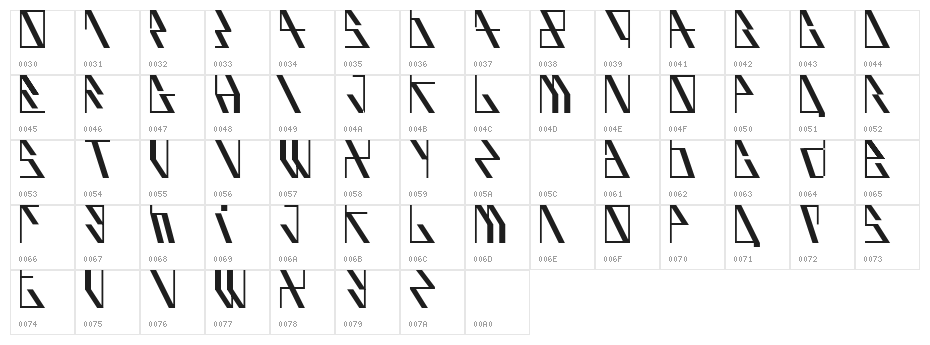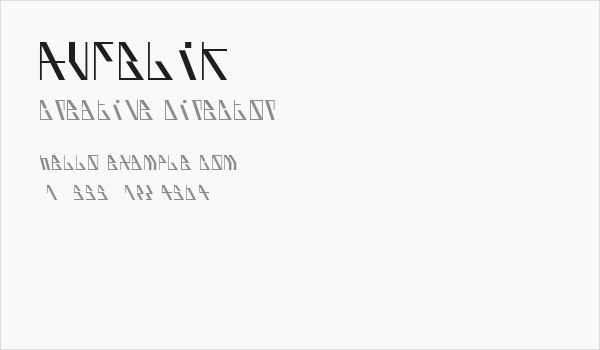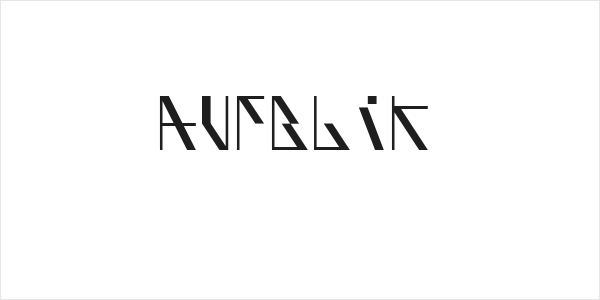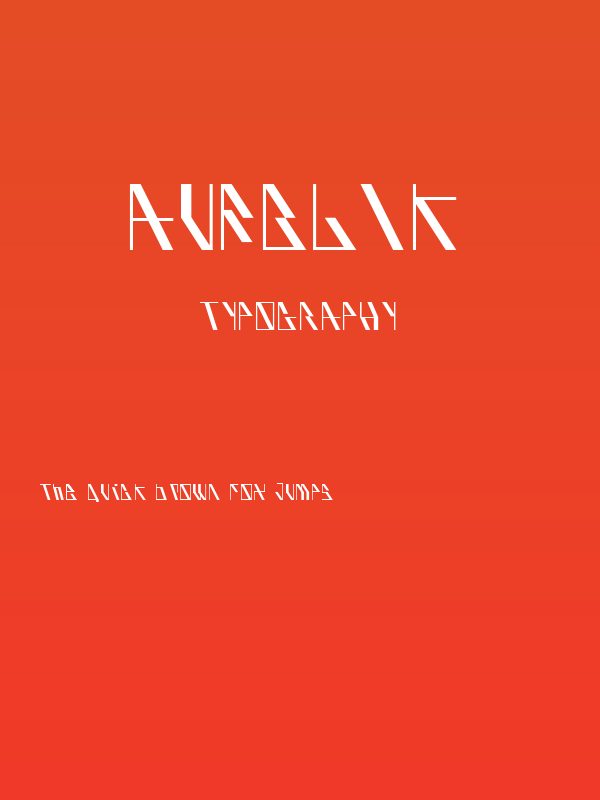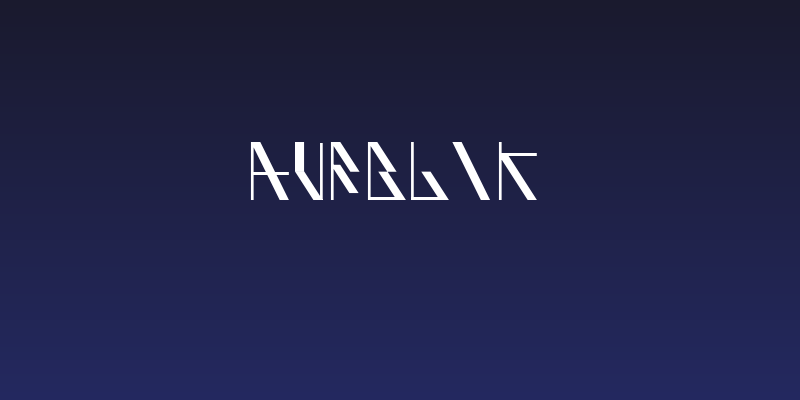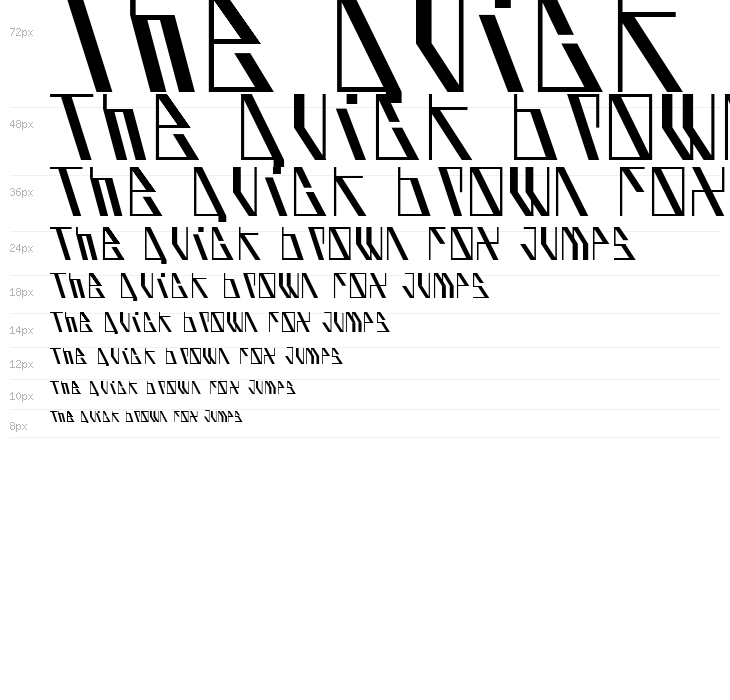
AufBliK Font
AufBliK Description
This font features a bold, geometric design with sharp angles and a futuristic aesthetic. Each character is crafted with a unique combination of straight lines and acute angles, creating a sense of movement and energy. The uppercase and lowercase letters maintain a consistent style, emphasizing the angular and edgy look. Numbers and special characters follow the same design principles, ensuring uniformity across all glyphs. The overall appearance is striking and modern, making it ideal for projects that require a distinctive and eye-catching typeface.
| Overall Style | Futuristic, Modern |
| Proposed Projects | Ideal for sci-fi themed designs, modern branding, posters, and digital media projects. |